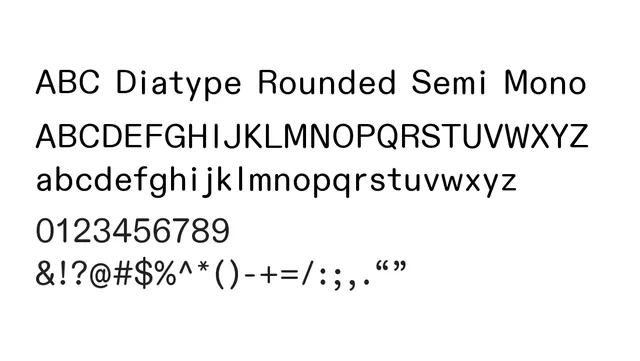
ABC Diatype Rounded Semi Mono
A rounded semi-monospace hybrid balancing monospace structure with slightly proportional letterforms, offering readability with character variation.
Perfect for interfaces needing monospace structure without full fixed-width rigidity. Excellent for technical documentation, code display, and dashboard UI where both clarity and variety in letterforms are valued.
Works well with ABC Diatype Rounded for headlines or Courier Prime for more traditional coding roles.